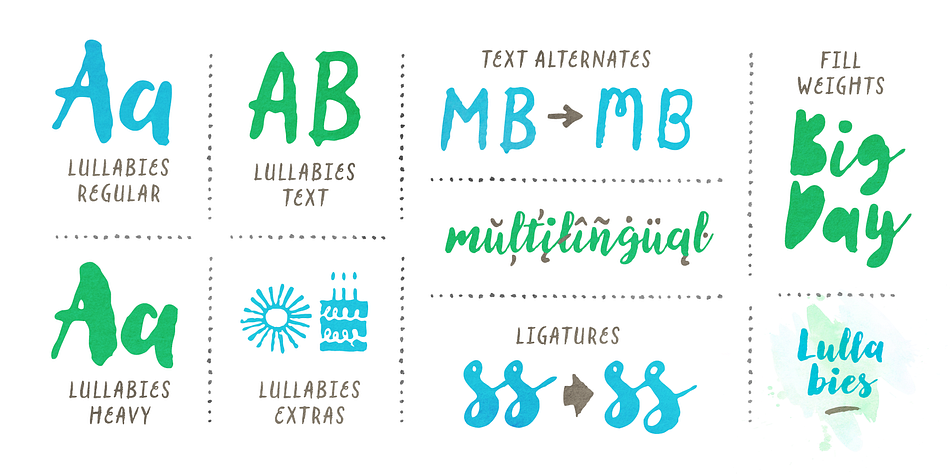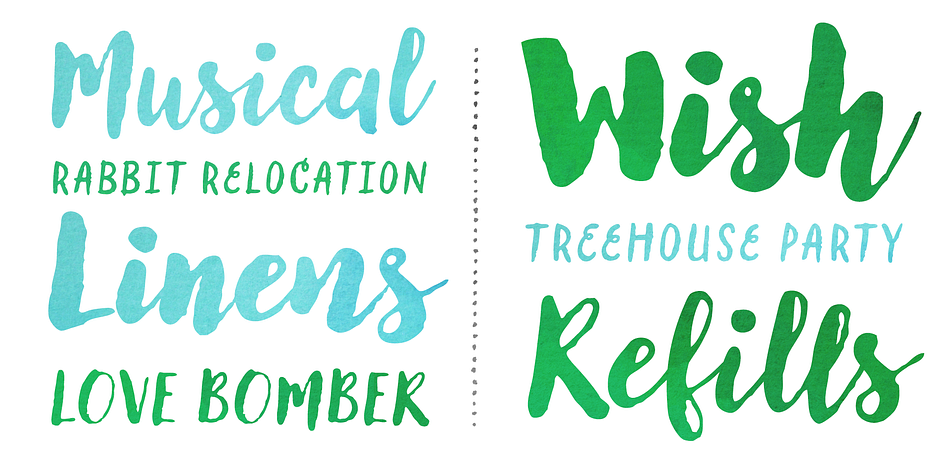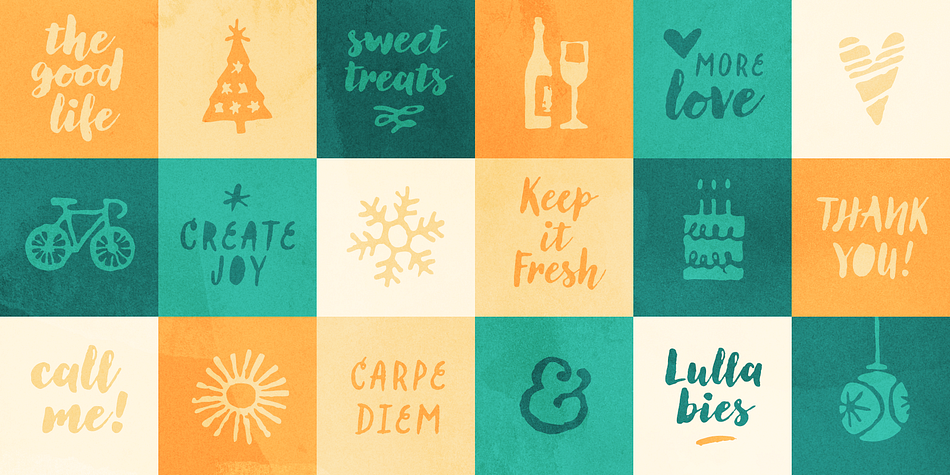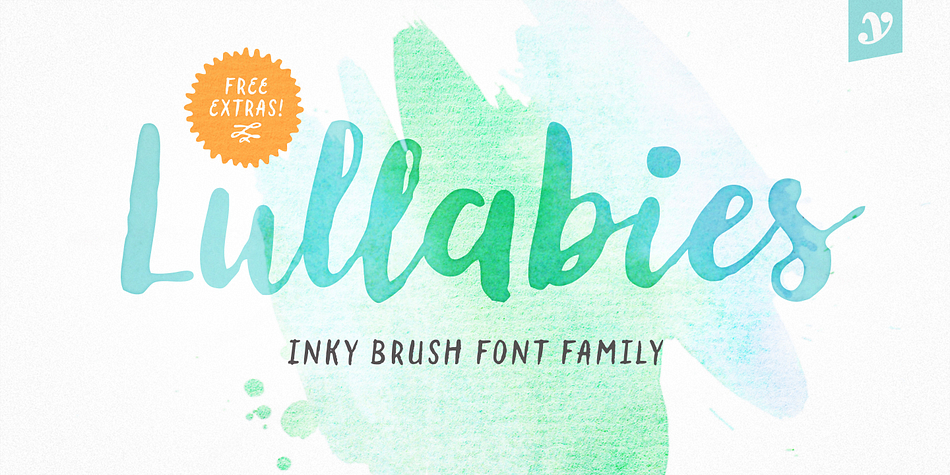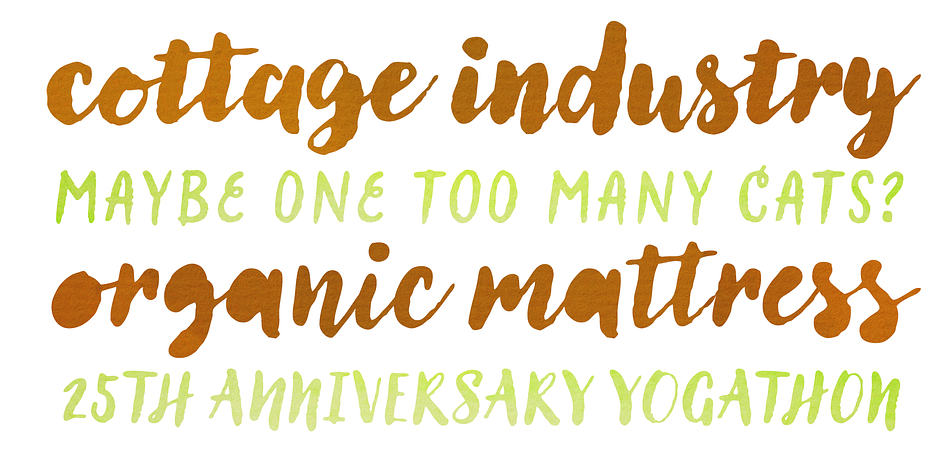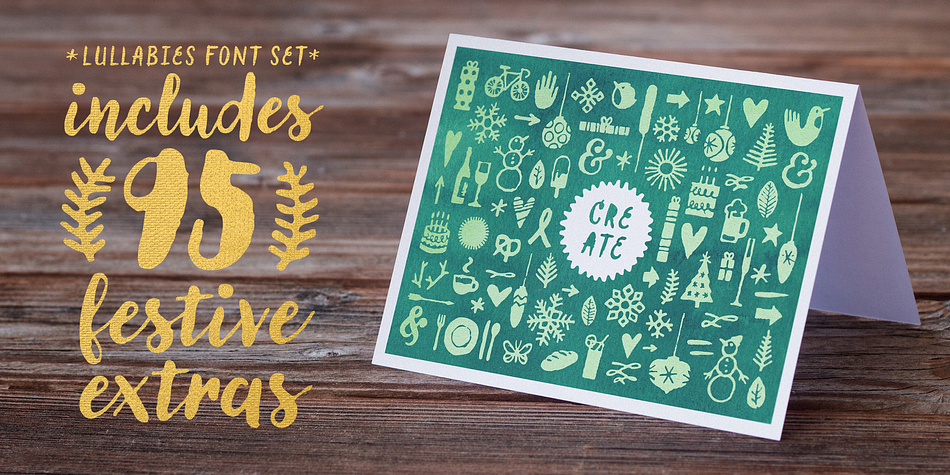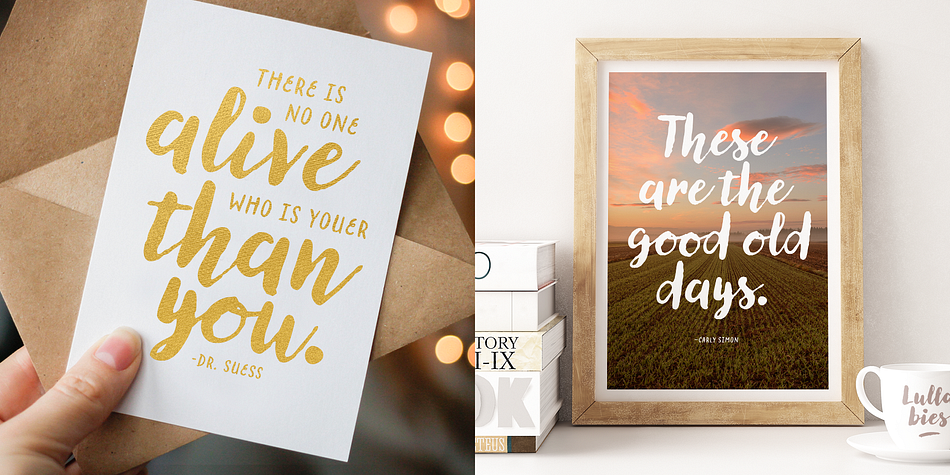
Designed by Ryan Martinson, Lullabies is a multiple classification font family. This typeface has seven styles and was published by Yellow Design Studio.
Lullabies from Yellow Design Studio is a warm-hearted brush font family featuring regular and heavy scripts plus a companion all-caps sans. Filled versions add extra playfulness. All weights include multiple options for every letter and number along with automatic double-letter ligatures for authentic hand-lettered typesettings. Also included is a set of 95 festive icons!